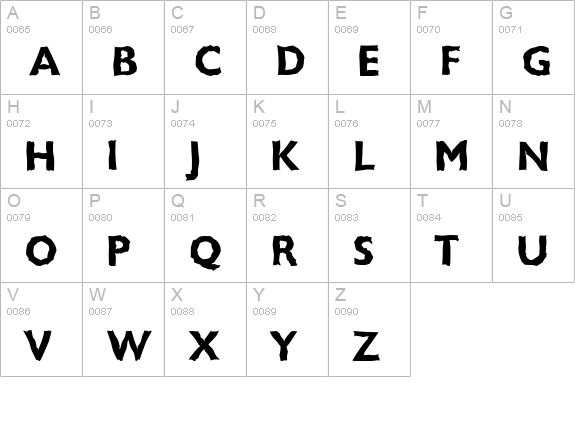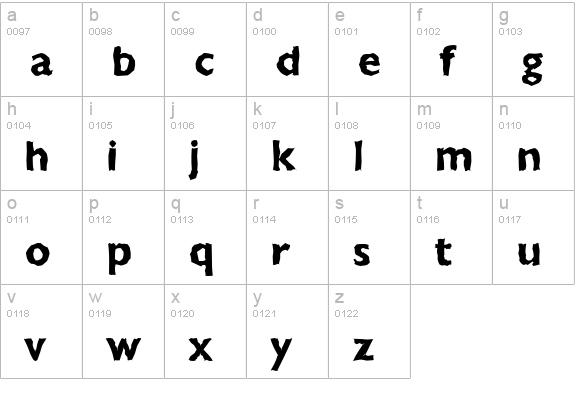
ChantillyRandom-Bold is a strong, high-contrast variant in the ChantillyRandom typeface family \xE2\x80\x94 well suited to headlines, attention-grabbing titles, and strong calls-to-action.
ChantillyRandom-Bold is a modern and stylish font designed to make a bold statement in any design project. With its unique combination of sharp edges and rounded corners, this font exudes confidence and sophistication. Perfect for headlines, logos, and branding materials, ChantillyRandom-Bold commands attention and leaves a lasting impression. What sets ChantillyRandom-Bold apart is not only its striking appearance but also its versatility. Whether you're creating a sleek website or designing eye-catching posters, this font will add a touch of elegance to your work. Its bold and dynamic look ensures that your message will stand out and make an impact. Best of all, ChantillyRandom-Bold is completely free to download at FontsMarket.com. This means that you can elevate your designs without breaking the bank. Don't miss out on the opportunity to enhance your projects with this stunning font. Download ChantillyRandom-Bold today and see the difference it can make in your design work.